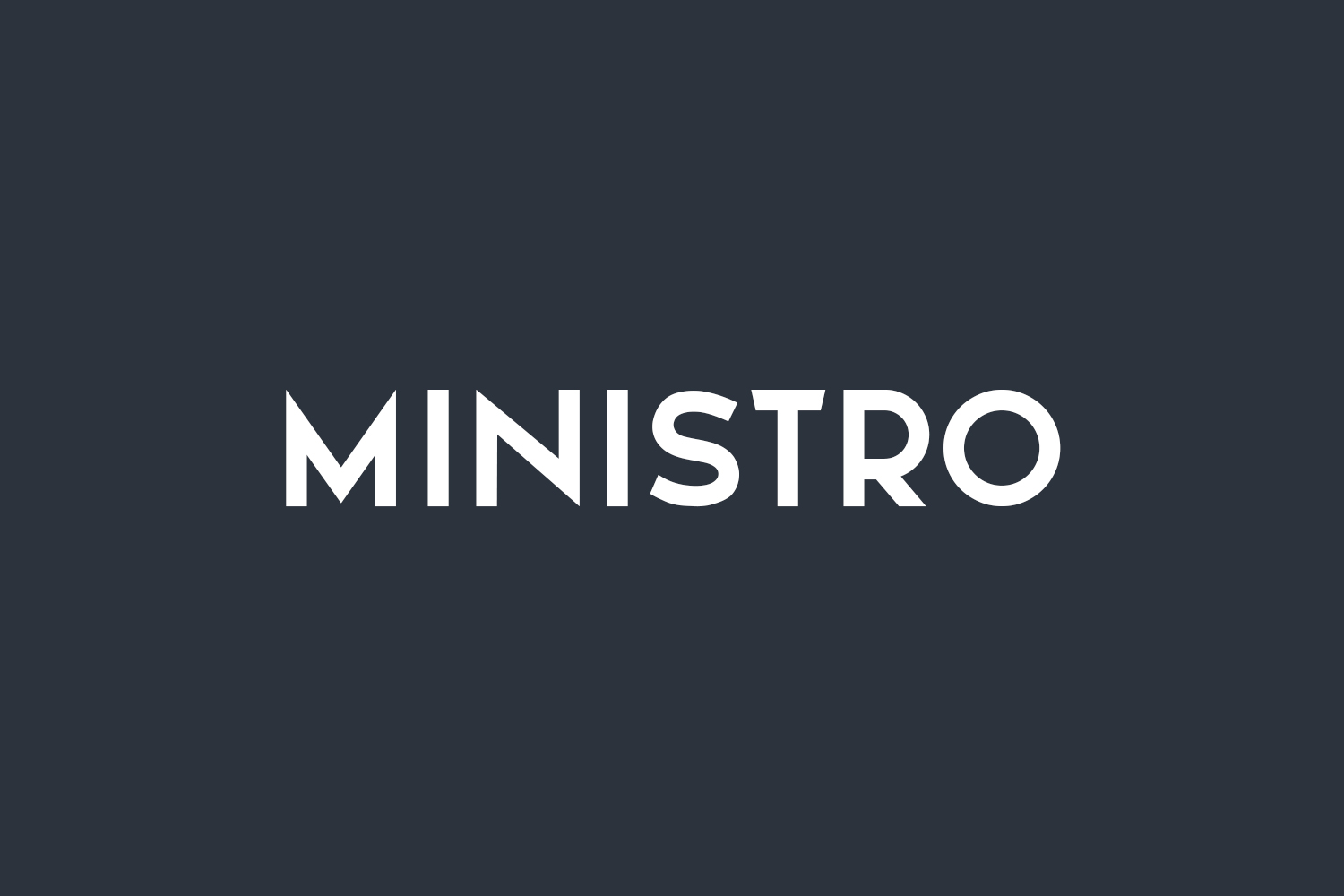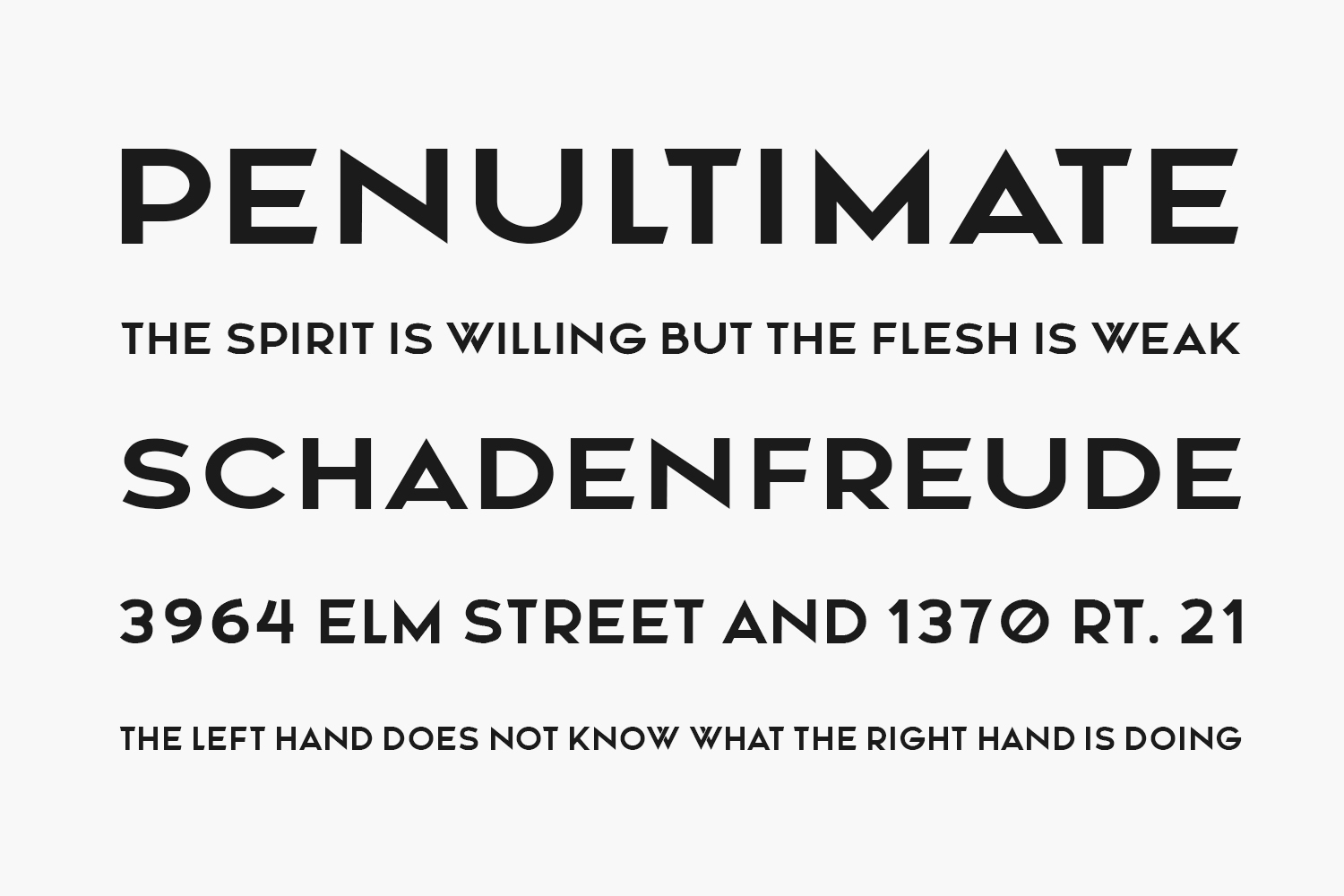
Ministro Free Font is a simple and genuine sans serif font, featuring a flexible look. No matter the topic, this font will be an incredibly asset to your fonts’ library, as it has the potential to elevate any creation. Ministro Free Font was designed by Vladimir Nikolic and is free for personal use only. Please purchase the full version for commercial use.
Designed by Vladimir Nikolic